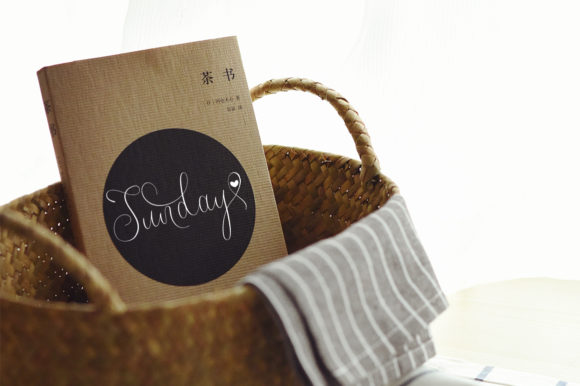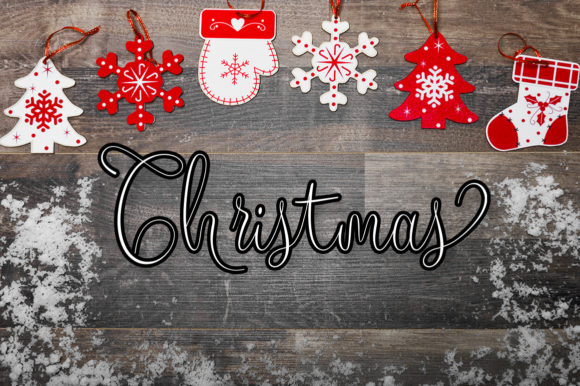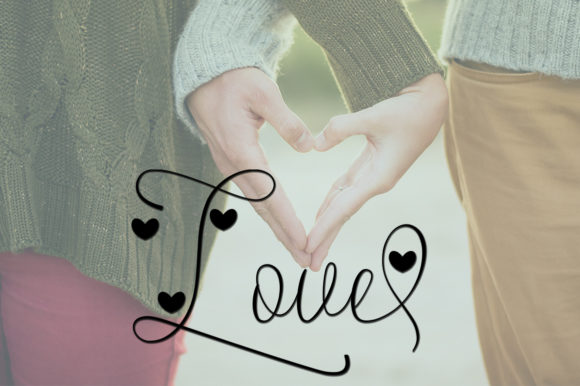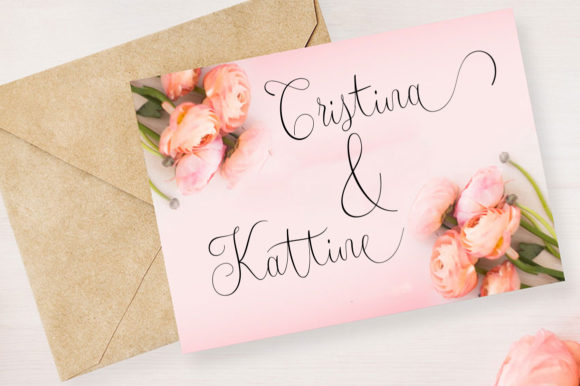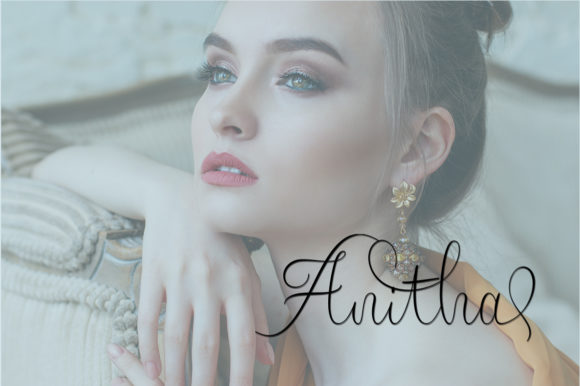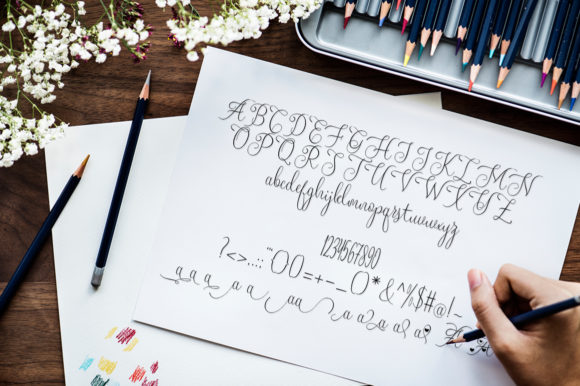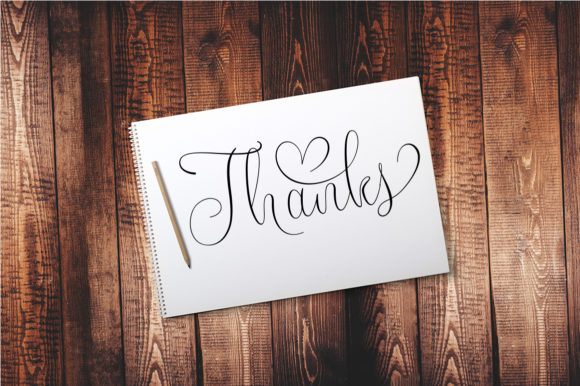
Yolanda Font
About Yolanda Font
The Yolanda is a fresh and modern calligraphy font. It has decorative characters and a dancing linage.
Perfect for greeting cards, branding material, business cards, quotes, posters, and more!!